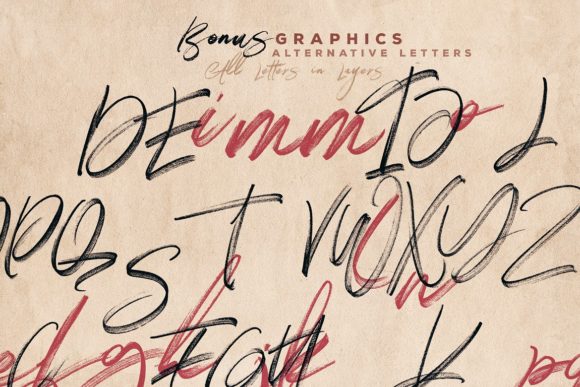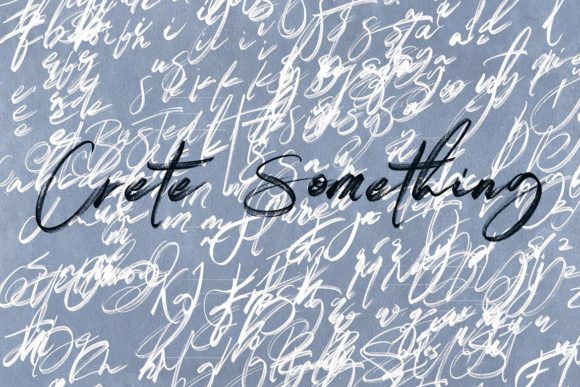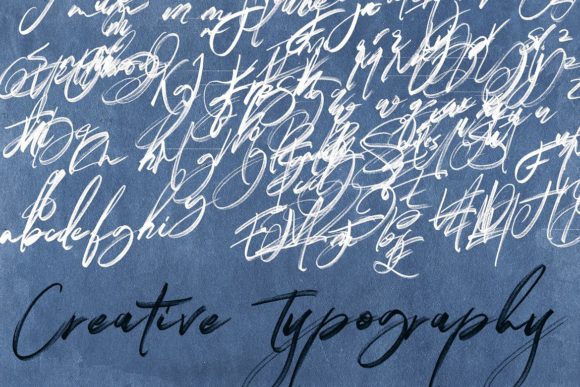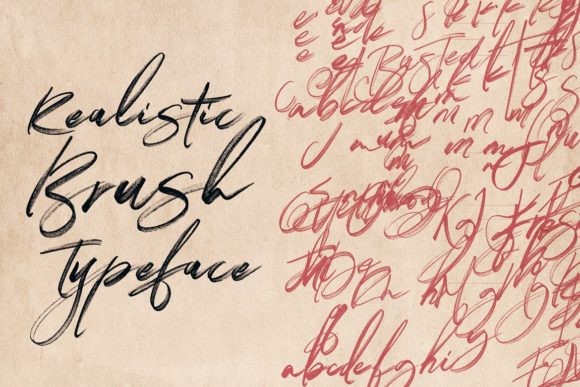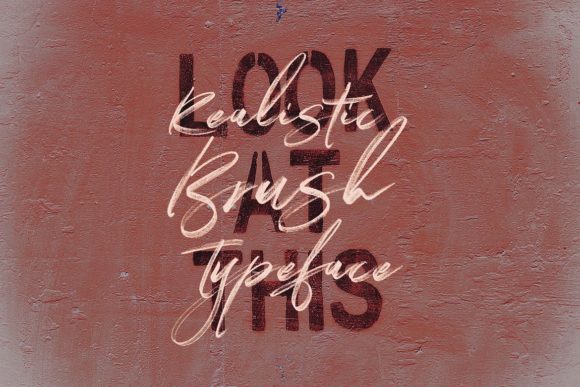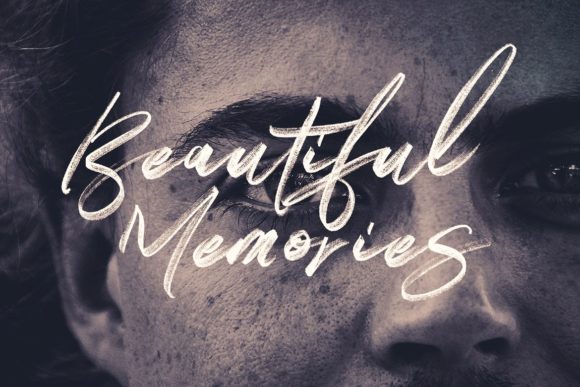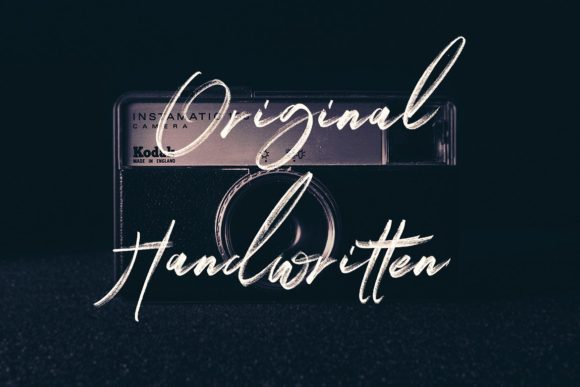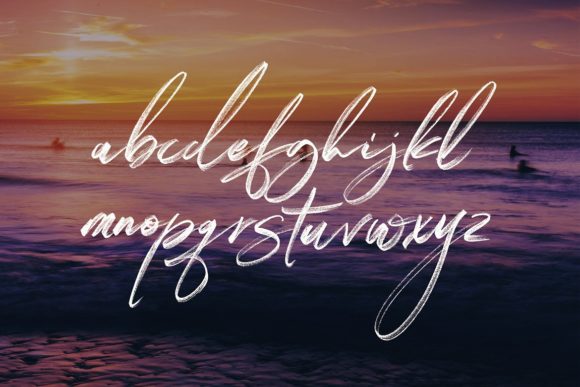
HomeScript FontsRight Font Script Fonts Right Font FacebookXPinterestWhatsApp Right Font Poster 2 Right Font Poster 3 Right Font Poster 4 Right Font Poster 5 Right Font Poster 6 Right Font Poster 7 Right Font Poster 8 Right Font Poster 9 Right Font Poster 10 Right Font Poster 11 Right Font Poster 12 Right Font Poster 13 Right Font Poster 14 Right Font Poster 15 Right Font Poster 16 Right Font Poster 17 Right Font Poster 18 About Right Font Right is a bold font with great brushes, it will add a distinctly modern and contemporary feel to any design idea. DOWNLOAD ON CREATIVE FABRICAThis font is sold and delivered by Creative Fabrica. Font Canyon may earn a commission if you buy through this link. People also explored Rushing Nightshade Font Honey Font Mockup 3D Metal Chrome Baynaa Font Hebrew Latino Chunky Money Font Clarsly Extra Bold Font Renedetta Font Geollitta Font 402 0 TagsRight Font Previous articleHamiliton FontNext articleRinjani Font LEAVE A REPLY Cancel reply Comment: Please enter your comment! Name:* Please enter your name here Email:* You have entered an incorrect email address! Please enter your email address here Website: Save my name, email, and website in this browser for the next time I comment. Personal Use Free Feather Script Personal Use Free Read more about this font Angola Beach Personal Use Free Read more about this font Ayam Bakar Personal Use Free Read more about this font Aldenburg Personal Use Free Read more about this font BLOG How to Cut Any Font on Cricut: Convert a Font to SVG (Free) Turn any font into a clean SVG so it cuts crisp on Cricut - a quick 3-step workflow using a free font-to-SVG tool. Using Fonts in Digital Marketing: Tips to Strengthen Your Brand Identity Transform Your Website: Elevate Your Typography with 7 Best Web Font Generators Exploring Font Trends